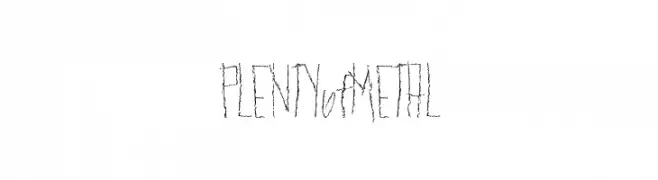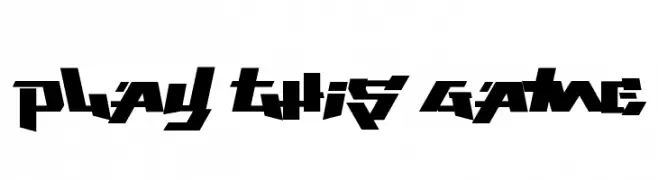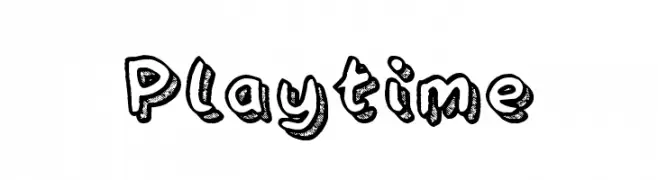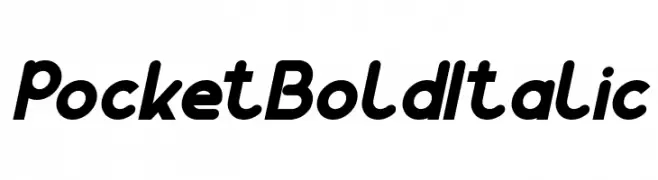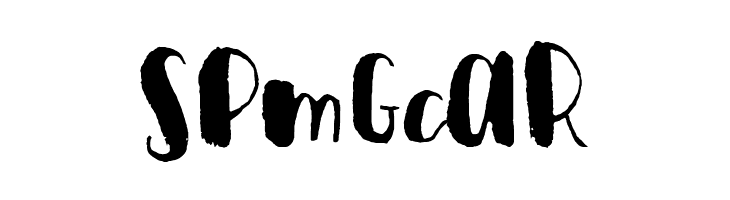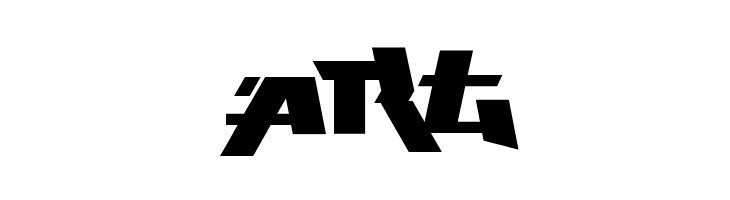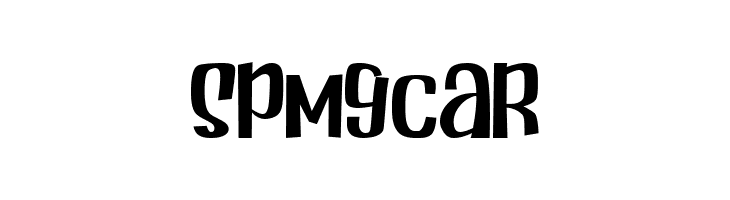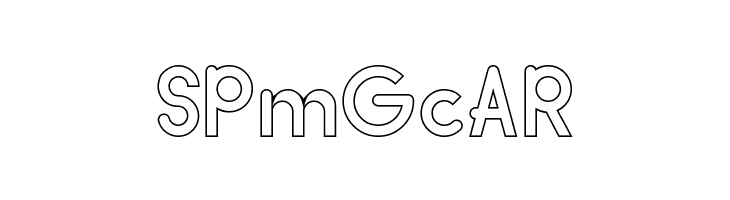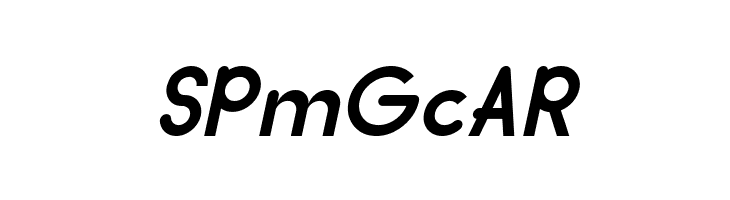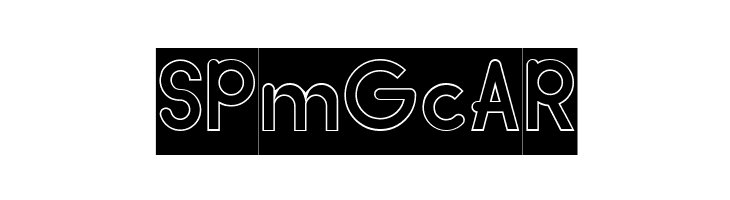
• Play This Game
A bold, angular font with a futuristic and dynamic style.
• Playtime
A playful, hand-drawn font with bold outlines and textured fills.
• Playworld
A playful, bold font with rounded, whimsical characters.
• PLENTYofMETAL
A rugged, hand-drawn font with a metallic, industrial aesthetic.
• Plum Brush Script Demo
A bold, brush-style script font with a lively, hand-painted look.
• Pocket Bold
A bold, rounded font with smooth curves and a modern geometric style.
• Pocket Bold Italic
A bold, italicized font with a modern and playful style.
• Pocket Italic
A modern italic font with smooth curves and a dynamic appearance.
• Pocket-Hollow
A modern, hollow geometric font with clean lines and rounded edges.
• Pocket-Hollow-Inverse
A modern, hollow, geometric font with a striking outline effect.